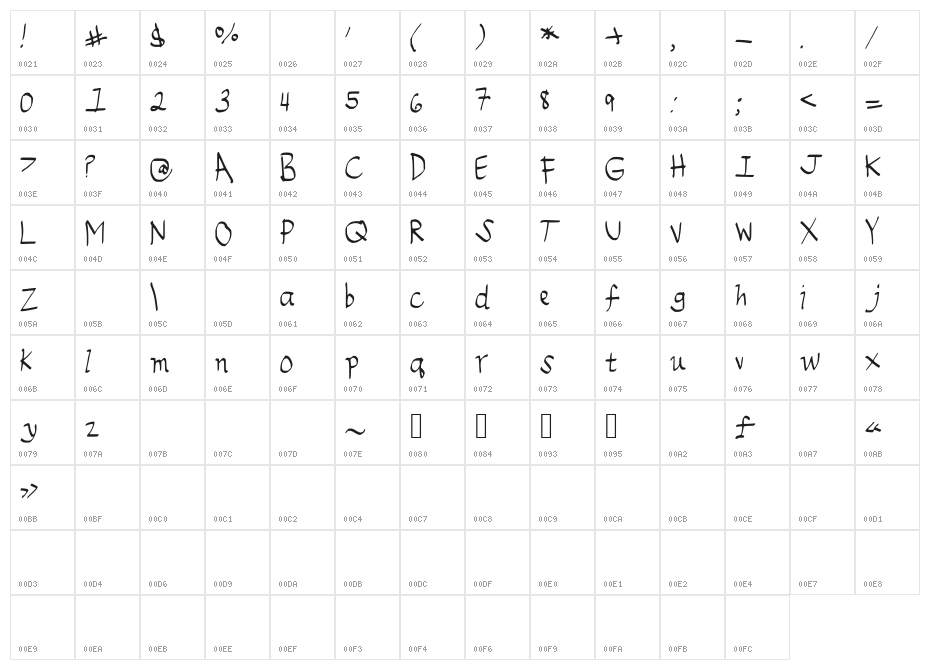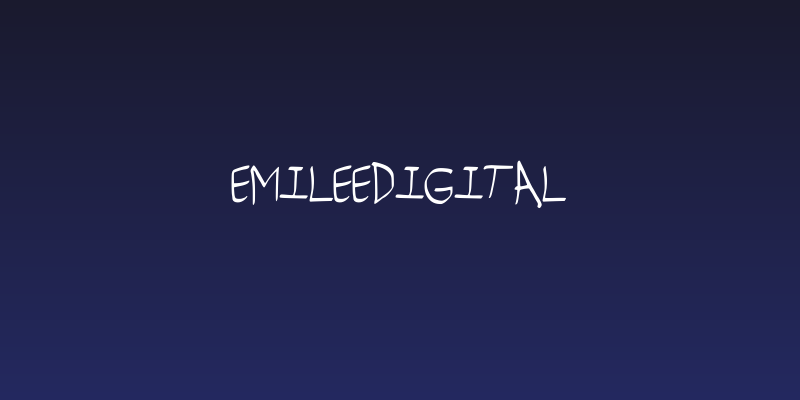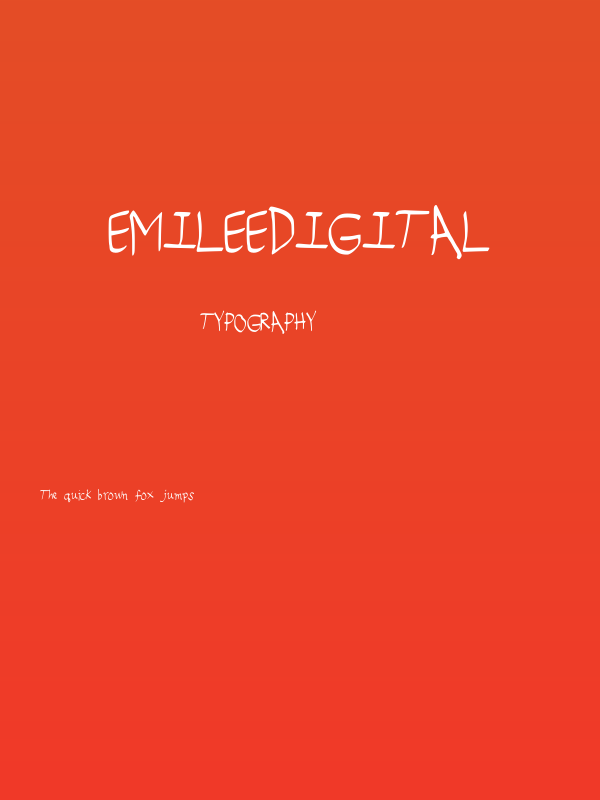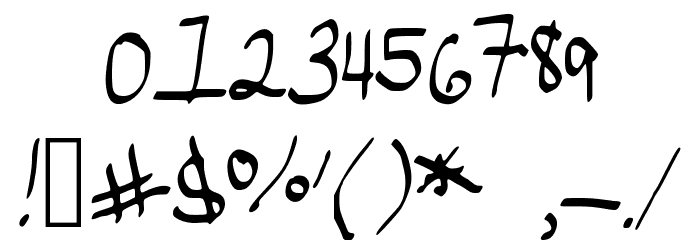
Emileedigital Font
Emileedigital Description
This font exhibits a playful and casual handwritten style, characterized by its irregular strokes and slightly uneven baseline. The letters have a whimsical and informal appearance, with varying stroke widths that add a dynamic and lively feel. The uppercase letters are bold and prominent, while the lowercase letters maintain a consistent flow, enhancing readability. The numerals and special characters are crafted with the same playful touch, making them suitable for creative and artistic projects. This font's unique style makes it ideal for designs that require a personal and approachable touch.
EMILEEDIGITAL UPPERCASE
EMILEEDIGITAL LOWERCASE
EMILEEDIGITAL OTHER CHARS
| Use Case | Logos, Headlines, Informal Invitations |
| Proposed Projects | Ideal for greeting cards, children's books, playful branding, and artistic posters. |